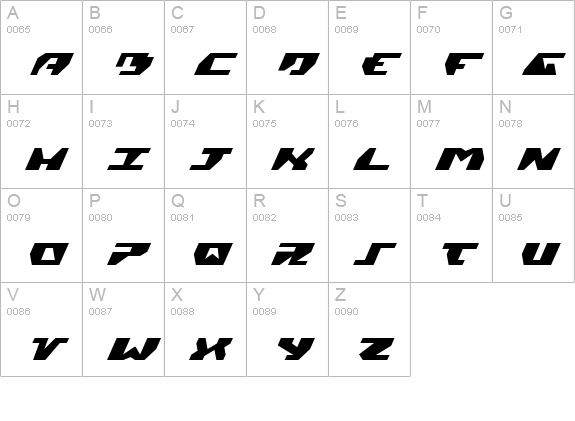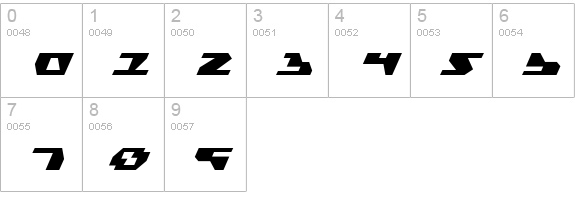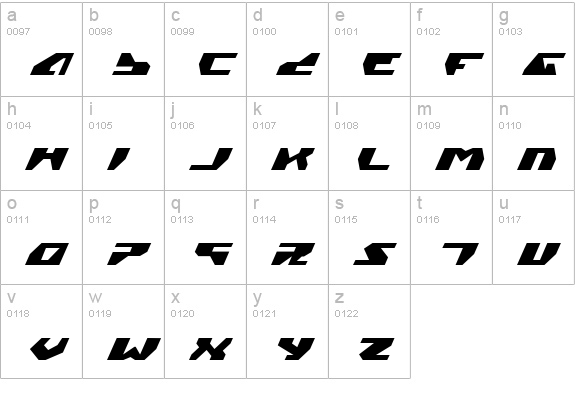
Gyrfalcon Expanded Italic is a distinctive, extended-width, italic variant in the Gyrfalcon typeface family \xE2\x80\x94 well suited to design and typography projects.
Introducing Gyrfalcon Expanded Italic font - a bold and dynamic typeface designed to make a statement. Its sleek and modern curves exude sophistication and style, making it perfect for eye-catching headlines, posters, and branding projects. The italicized version of Gyrfalcon Expanded adds an extra touch of elegance and flair, making your text stand out even more. Best of all, Gyrfalcon Expanded Italic font is available for free download at FontsMarket.com. Whether you're a designer looking to elevate your projects or a creative individual seeking a unique typeface, Gyrfalcon Expanded Italic is a versatile and striking choice that will surely make an impact. Download it today and unleash your creativity with this exquisite font.